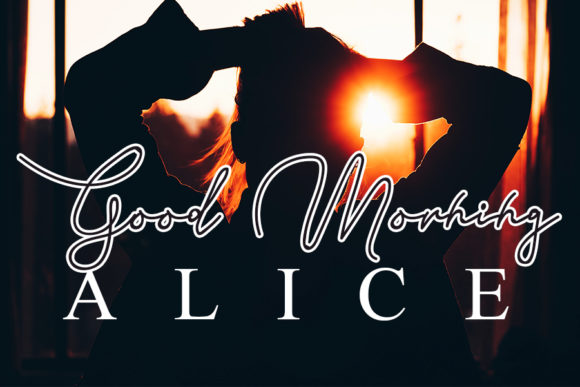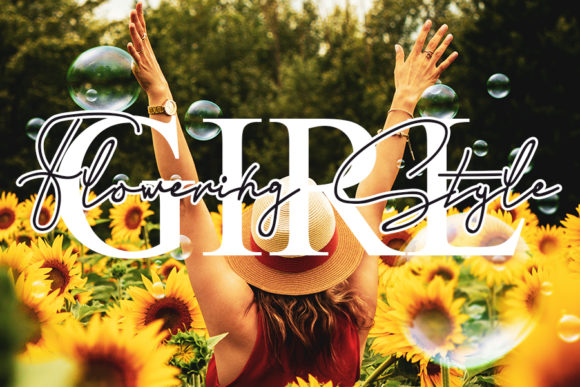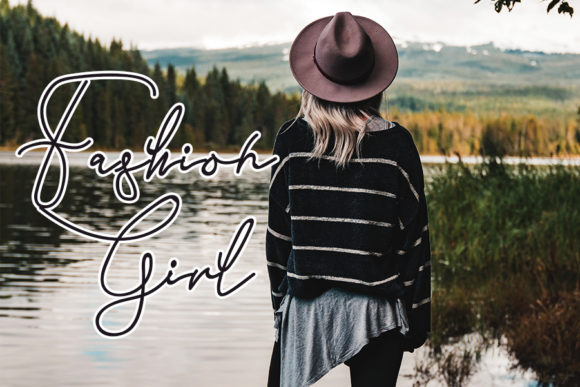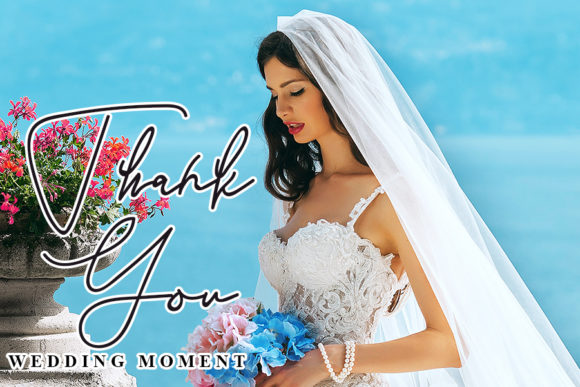
Signature is a relaxed and timeless calligraphy typeface with characters that dance along the baseline. It has a casual, yet elegant touch. It can be used for various purposes such as logos, wedding invitations, headings, t-shirts, letterhead, signage, labels, news, posters, badges and so much more.